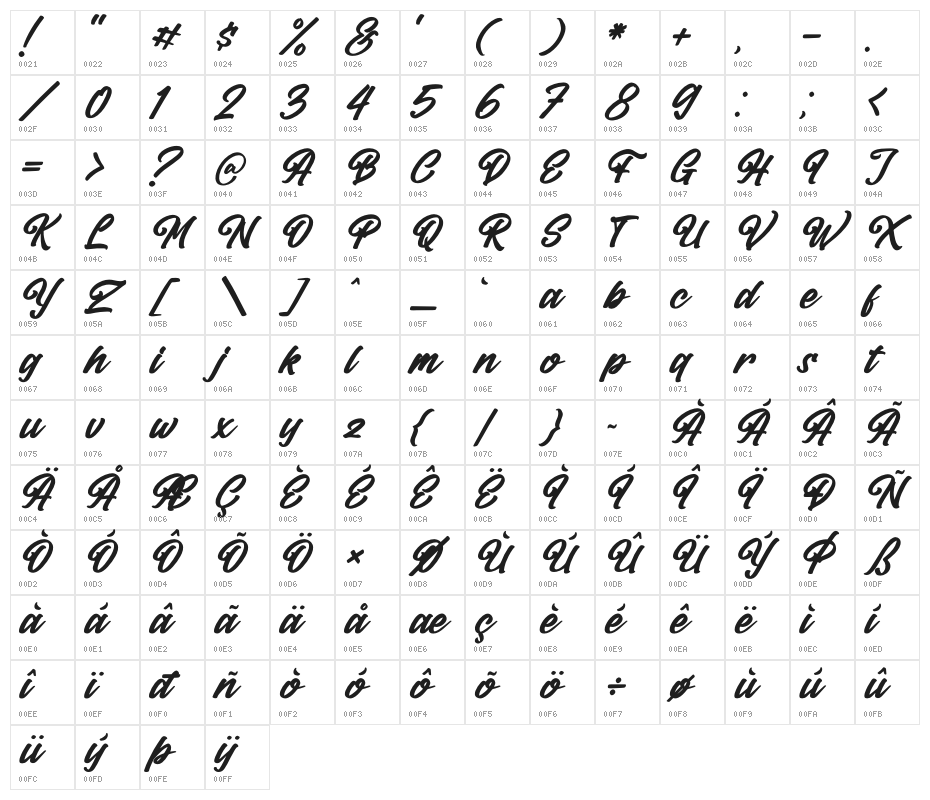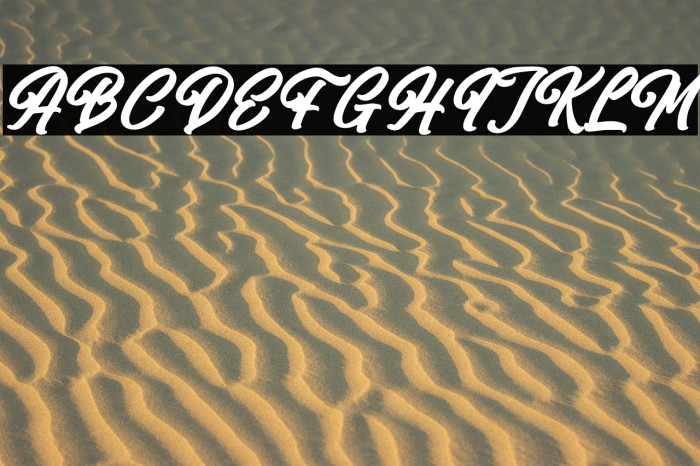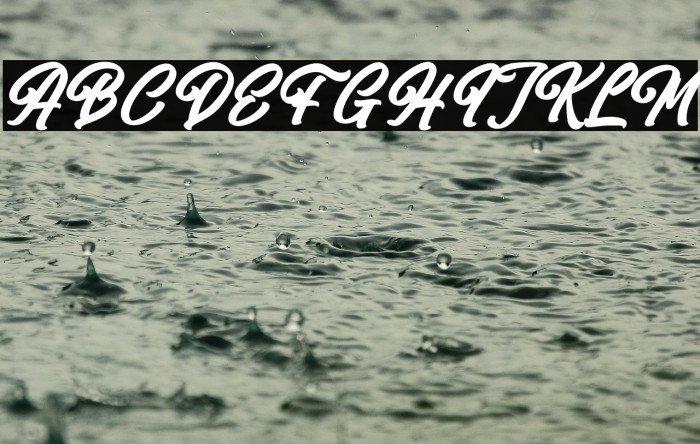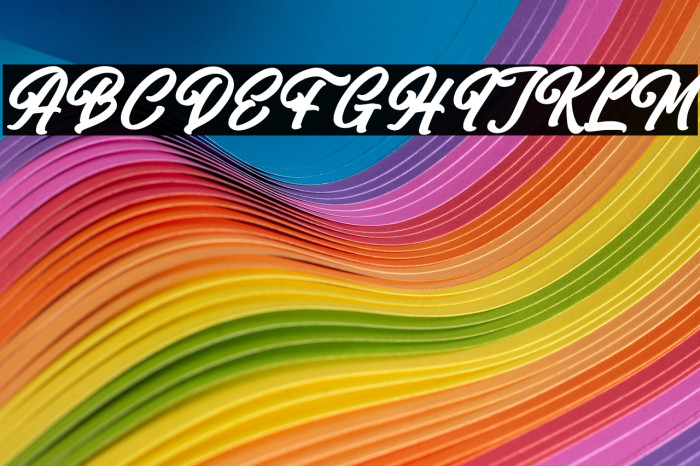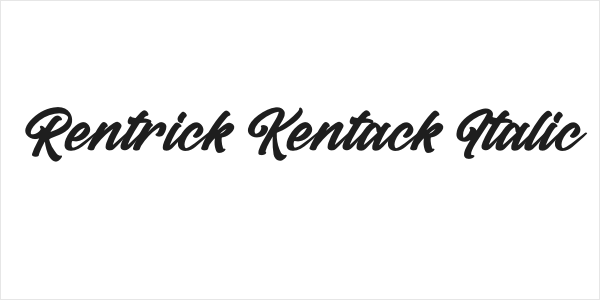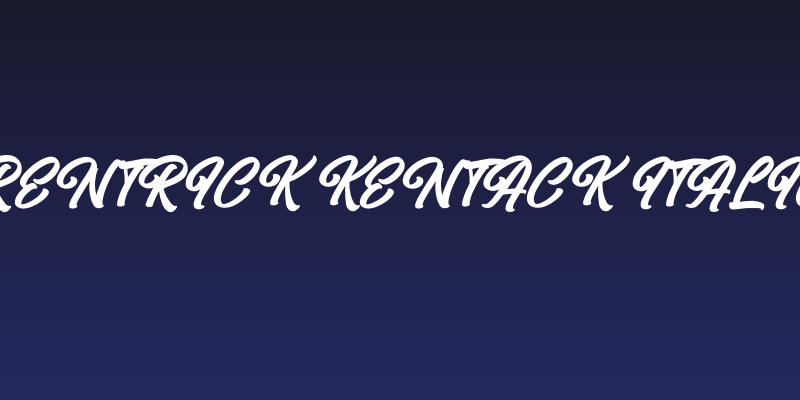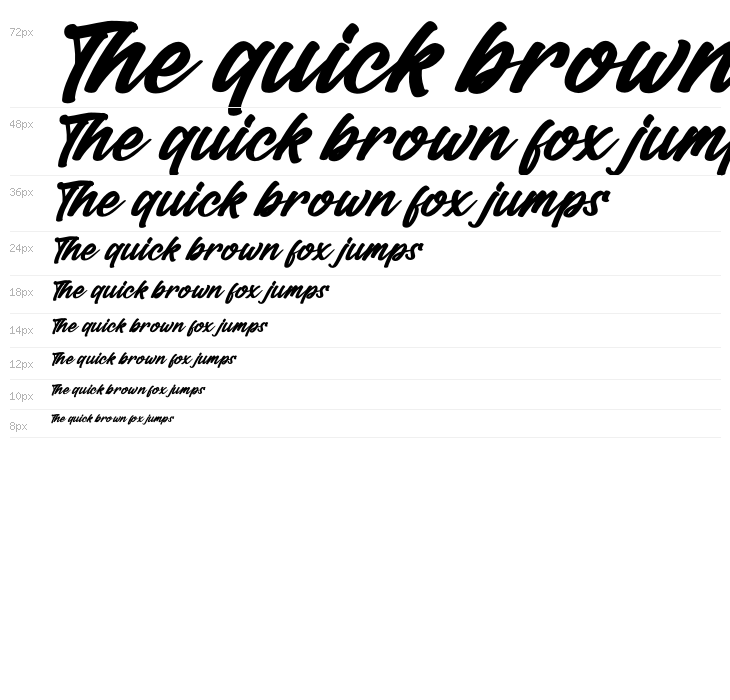
Rentrick Kentack Italic Font
Rentrick Kentack Italic Description
This font features a dynamic and flowing script style, characterized by its bold and italicized form. The letters are interconnected, creating a sense of movement and fluidity. The uppercase letters maintain a consistent height, while the lowercase letters exhibit a slight slant, enhancing the italic effect. The numerals are equally bold, matching the overall aesthetic of the alphabet. Special characters are designed with the same attention to detail, ensuring uniformity across all glyphs. The font's bold strokes and smooth curves make it highly legible, even at smaller sizes.
Use CaseLogos, Headlines, Invitations
Proposed ProjectsIdeal for branding, invitations, greeting cards, and logo design projects where a personal and elegant touch is desired.